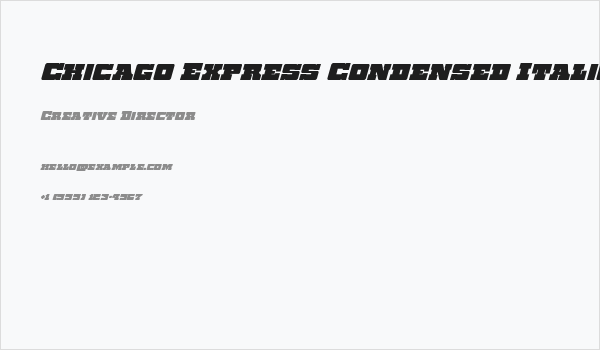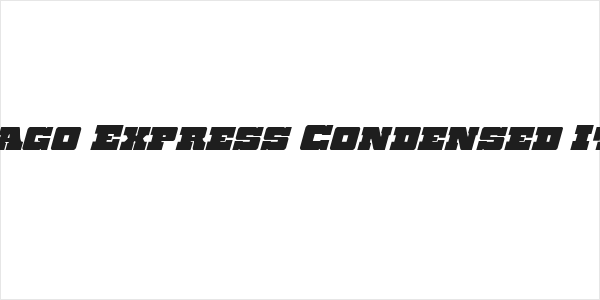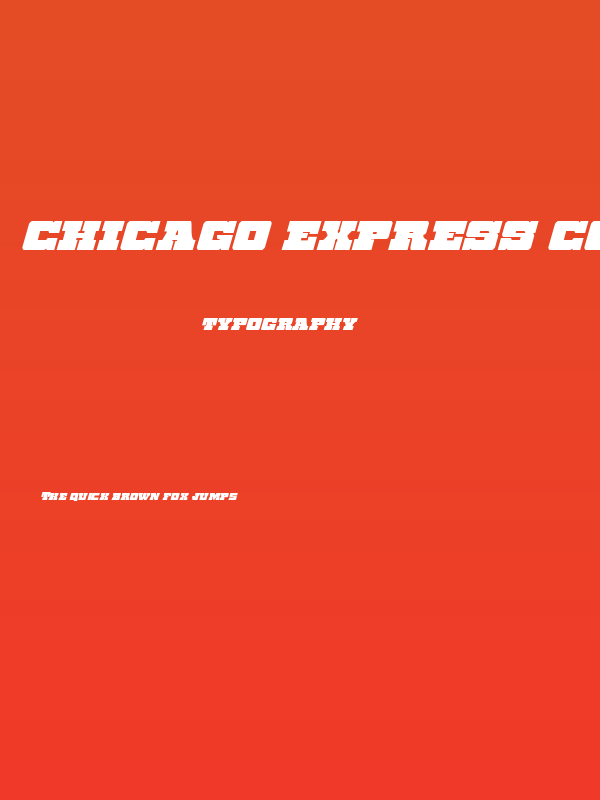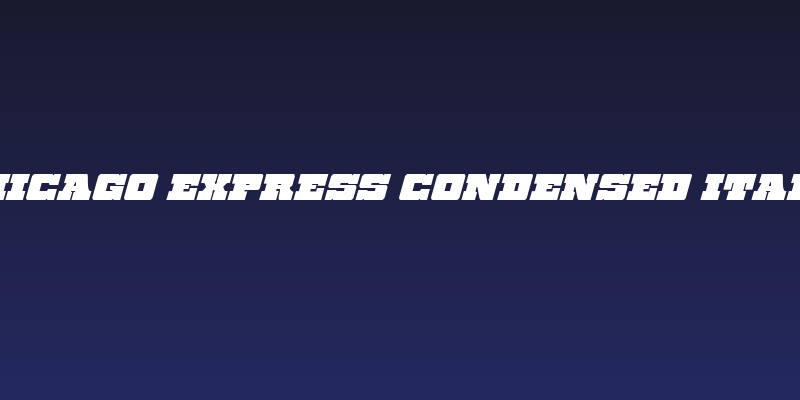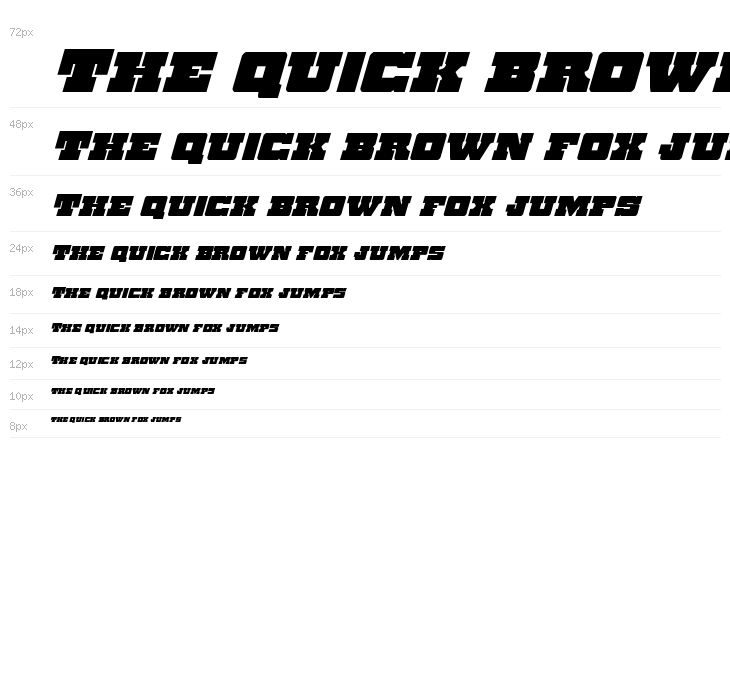
Chicago Express Condensed Italic Font
Chicago Express Condensed Italic Description
This font features a bold and dynamic style with a condensed and italicized form, giving it a strong and impactful presence. The characters are tightly spaced, enhancing the compact appearance. The strokes are thick and consistent, providing a uniform look across all letters and numbers. The design is modern and sleek, making it suitable for attention-grabbing headlines and titles. The angular cuts and sharp edges add a sense of speed and movement, ideal for projects that require a sense of urgency or energy.
| Proposed Projects | Ideal for sports branding, dynamic posters, automotive advertisements, and any project needing a bold, energetic typeface. |